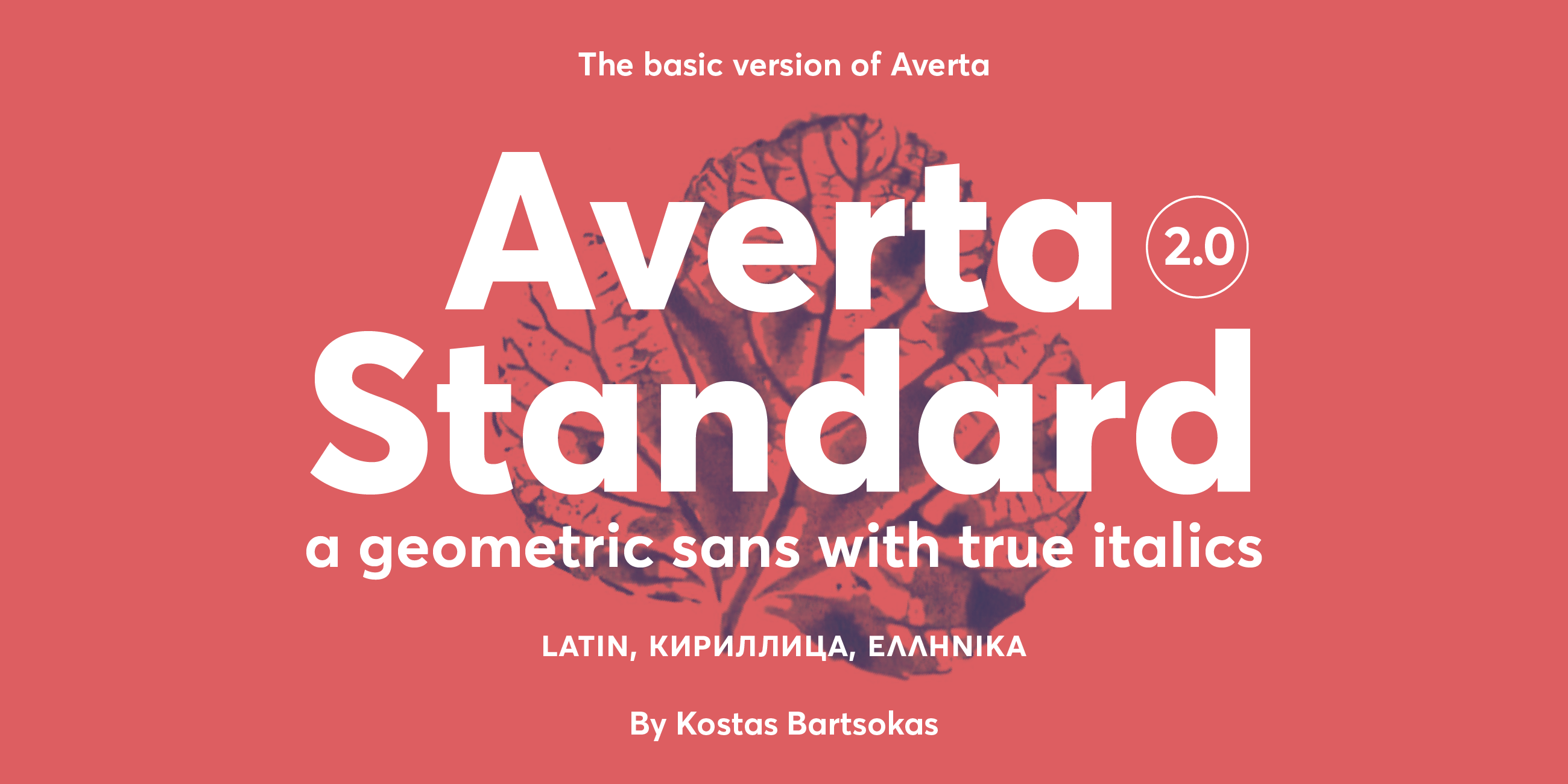
Averta Standard PE Font Free Download delivers a versatile typeface that combines geometric precision with humanist warmth and exceptional functionality. However, for commercial use, you must purchase this font. You can download it for free for testing purposes only.
Averta Standard PE Font excels in professional design applications including corporate branding systems, educational institution materials, government publications, healthcare organization signage, financial services presentations, technology company interfaces, municipal wayfinding systems, academic research papers, professional service branding, and comprehensive identity programs. This reliable typeface brings clarity and professionalism to institutional communications.
What makes Averta Standard PE Font truly exciting is its perfect fusion of geometric structure with subtle humanist characteristics that ensure optimal readability across all media. The font features carefully balanced letterforms with consistent proportions and generous spacing that create exceptional legibility in both print and digital environments. Its neutral yet distinctive character makes it ideal for organizations requiring trustworthy, accessible typography that performs reliably across diverse applications and audiences.
The Averta Standard PE Font family encompasses comprehensive weights including Thin, Light, Regular, Medium, Bold, and Black with corresponding Italic variations. These extensive options provide designers with complete typographic flexibility to create sophisticated hierarchical systems while maintaining consistent brand identity across all communication touchpoints and platforms.
Whether you're developing institutional branding, creating educational materials, or designing professional service campaigns, Averta Standard PE Font Free Download provides the reliable quality and typographic excellence that serious organizations require. Its exceptional versatility and professional credibility make it an essential tool for designers working with corporations, institutions, and service providers requiring authoritative visual communication that builds trust and conveys competence.